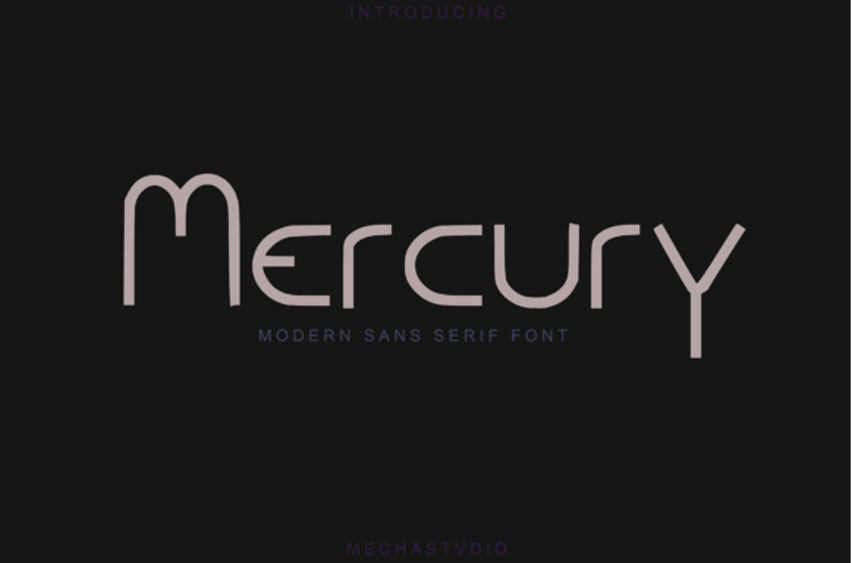
Mercury Modern Font is a modern, clean, and simple sans serif font.
Its unique style is perfect for all your projects as it has the potential to transform them into a true standout.